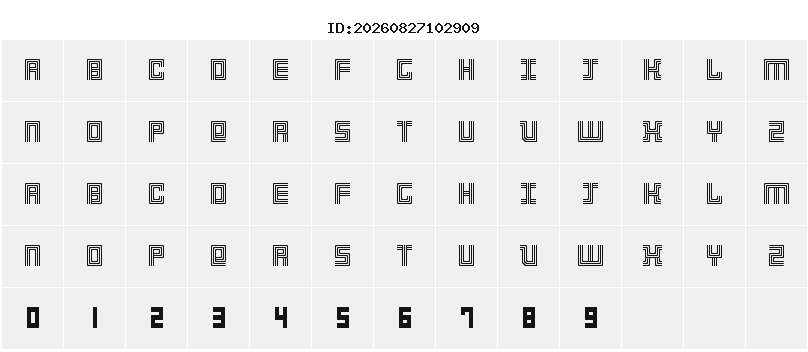
3 Strokes Preview
• Font Name: 3 Strokes
• Designer: softhunterdevil
• Description: “3 Strokes” was built with FontStruct
About 3 Strokes.ttf
3 Strokes.ttf is a modern, elegant sans-serif font designed for ultimate readability and visual harmony. Perfect for branding, headlines, web design, and print materials.